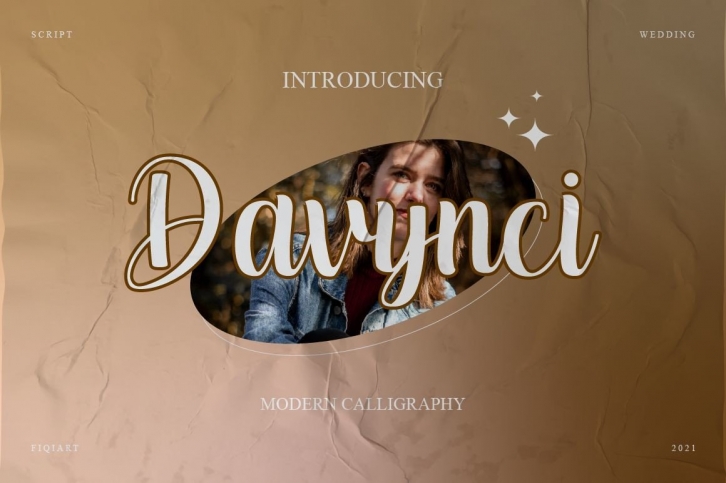
Davynci is a beautiful and elegant script font. It is defined by smooth curves and is perfect for fashion branding or editorial designs. Add it confidently to your projects, and you will love the results.Â